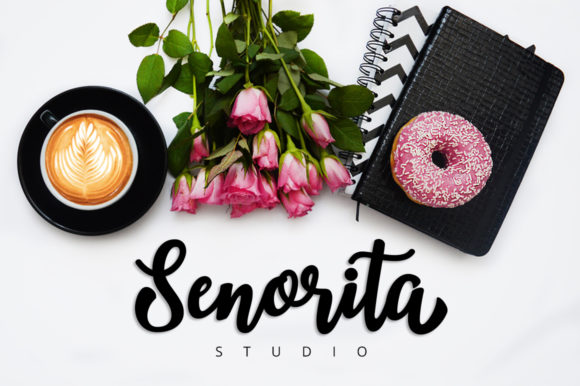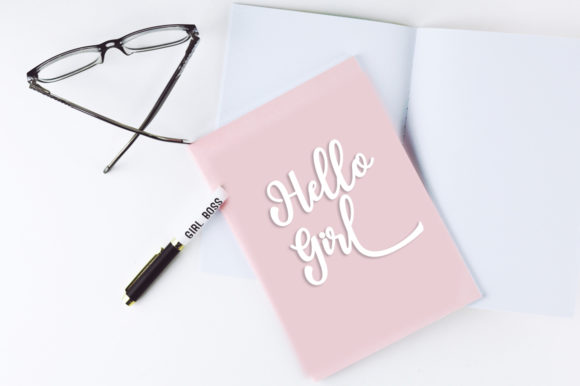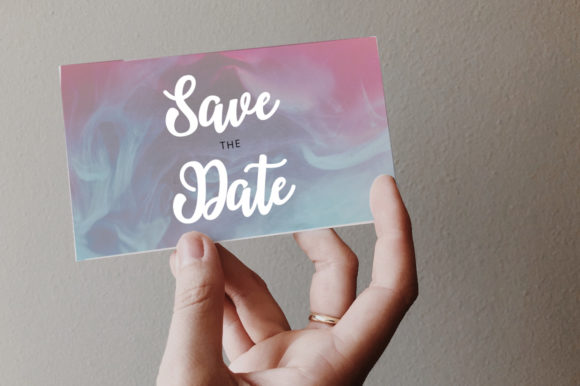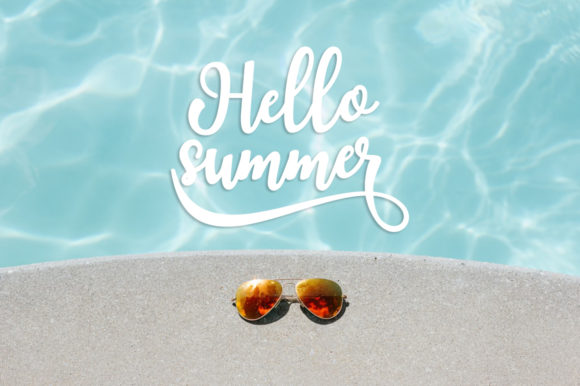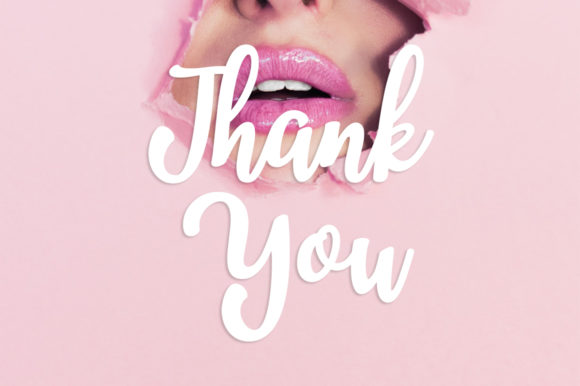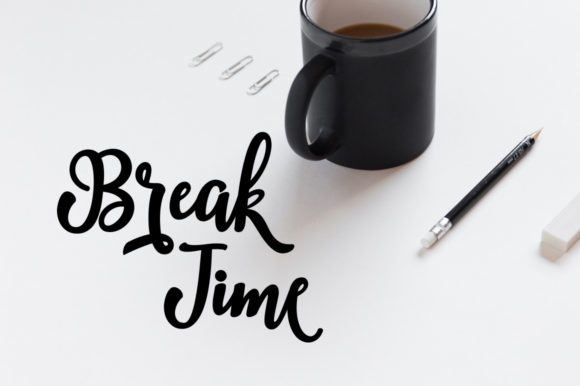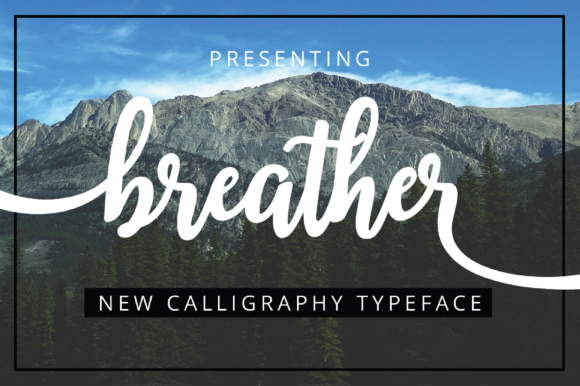
Personal Use Free Breather 0 175 FacebookTwitterPinterestWhatsApp 1 of 7 About Breather Font Breather is a font like a fresh breath of air: light, refreshing, and incredibly calm! Fall in love with its contemporary simplicity. Add this lovely freebie to your creations and take your designs to the next level! DOWNLOAD NOW